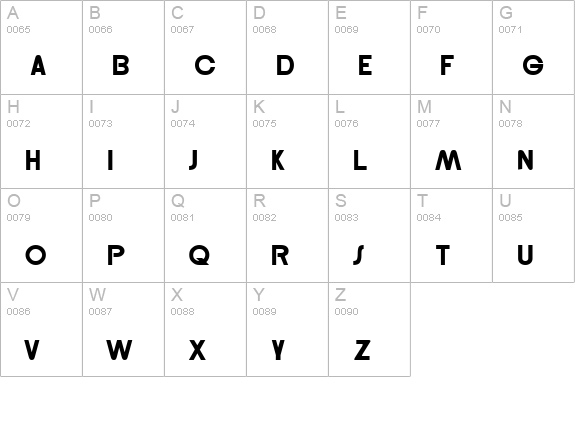
Golder Regular is the standard, neutral variant in the Golder typeface family \xE2\x80\x94 well suited to general body text, paragraphs, and standard typographic work.
Golder Regular font is a versatile and stylish typeface that exudes elegance and sophistication. With its clean lines and modern aesthetic, this font is perfect for a wide range of design projects, from branding to editorial design. The balanced proportions and classic letterforms make Golder Regular a timeless choice for any creative endeavor. What sets Golder Regular font apart is that it is available for free download at FontsMarket.com. This means that you can easily access this high-quality font and use it in your projects without any cost. Whether you are a seasoned designer or just starting out, Golder Regular font provides a professional and polished look that will elevate your designs. Don't miss out on the opportunity to enhance your work with this stunning typeface that is both beautiful and free to use.